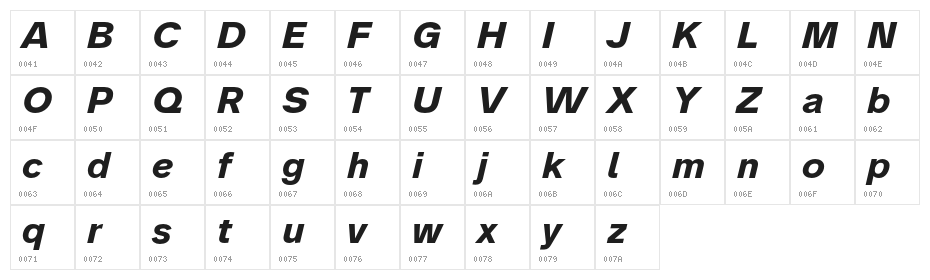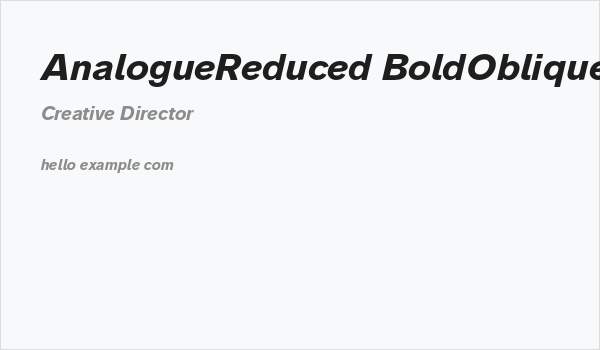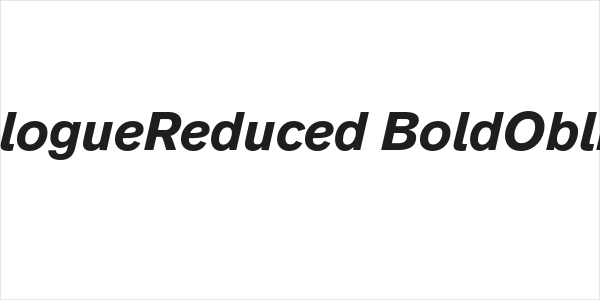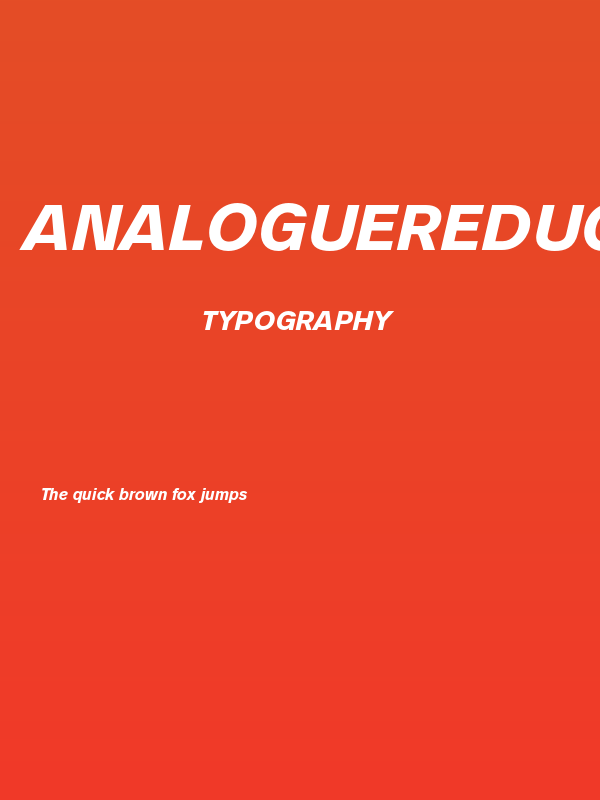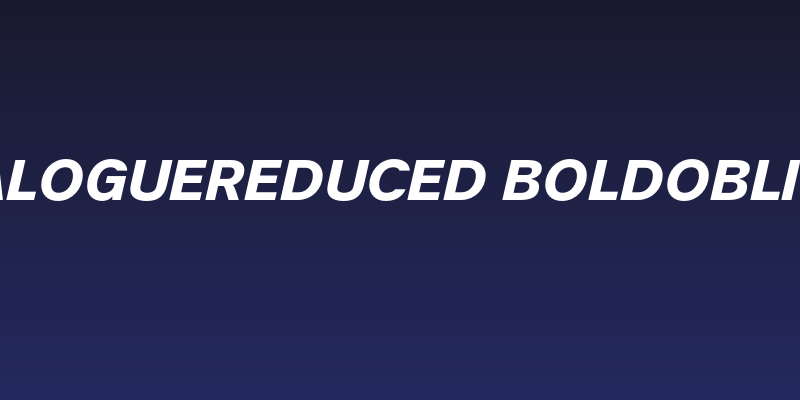
AnalogueReduced-BoldOblique Font
AnalogueReduced-BoldOblique Description
This font features a bold and oblique style, characterized by its strong and assertive appearance. The letters are slightly slanted, giving a dynamic and forward-moving impression. The strokes are thick and consistent, providing a sense of stability and strength. The overall design is clean and modern, with a sans-serif structure that enhances readability. The characters are well-spaced, ensuring clarity and legibility even at smaller sizes. This font is suitable for making impactful statements and can be used in various design contexts where a bold and contemporary look is desired.
| Proposed Projects | Ideal for branding, advertising, headlines, and any project requiring a strong visual impact. |